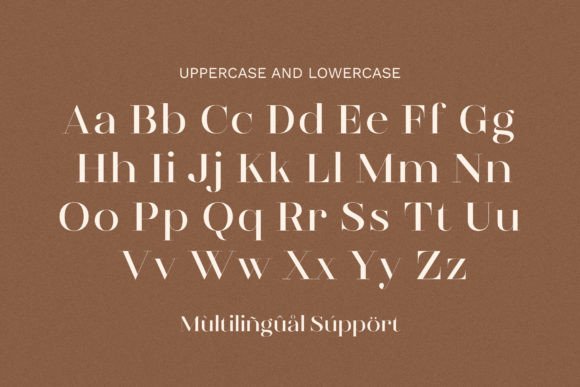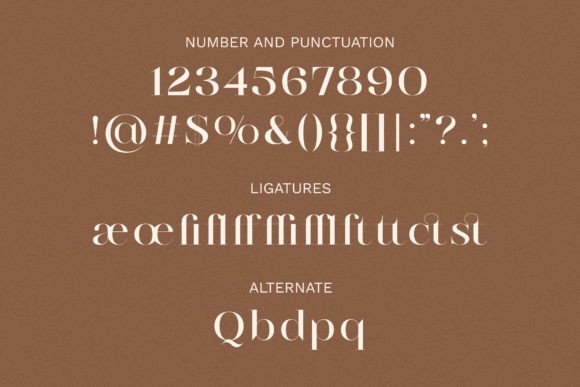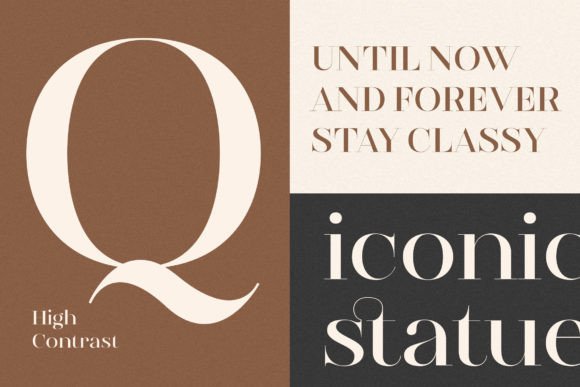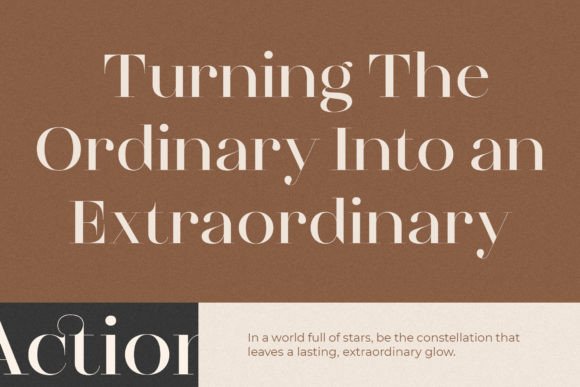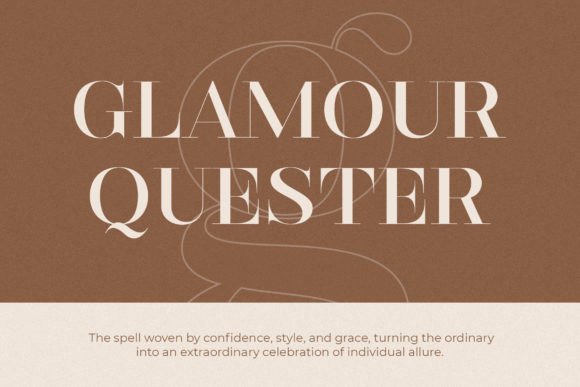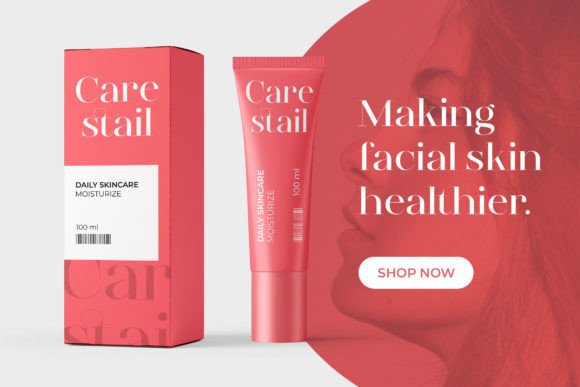
Introduction to Gistalk Font
Have you ever been in the middle of a creative project, pouring your heart and soul into a design, only to feel like something’s missing? The perfect font can make all the difference. For designers, finding that elusive font that elevates a design to the next level is a constant quest. This is where the Gistalk Font comes in – a luxury serif font that embodies sophistication and elegance.
As a valuable resource for designers, the Gistalk Font offers a level of refinement and timelessness that’s hard to find in other fonts. Its meticulously crafted ligatures and high-quality design make it a go-to choice for projects that require a touch of class. Whether you’re working on a logo design, business card, or packaging design, the Gistalk Font is sure to impress with its luxurious feel and transparent background.
Key Features of Gistalk Font
- High-quality font design with a transparent background, ideal for creative projects and designs.
- Comes in 5 unique styles, each with a distinct aesthetic and feel.
- Designed with a focus on readability and versatility, making it suitable for a wide range of design applications.
Honest Review: Gistalk Font
As a designer, I’m always on the lookout for high-quality design resources to elevate my creative projects. Recently, I had the chance to try out the Gistalk Font, and I’m excited to share my honest review.
- Unique Style: The Gistalk Font has a distinctive, modern design that catches the eye. It’s perfect for adding a touch of sophistication to your design.
- High-Quality Vectors: The font is available in high-quality vector format, making it easy to resize and manipulate without losing any detail.
- Transparent Background: The font comes with a transparent background, which makes it easy to combine with other design elements.
- Limited Character Set: The font only includes a limited character set, which may not be suitable for complex text-based projects.
- Not Suitable for Body Text: The font is more suitable for headlines and titles, as the text may become difficult to read when used for body text.
Gistalk Font: A High-Quality Design Resource for Creative Projects
Tips for Getting the Most Out of Gistalk Font
Use the Gistalk Font in conjunction with a transparent background to create a modern and sleek design. Experiment with different font sizes and styles to add visual interest to your design.
The Gistalk Font is suitable for a variety of creative projects, including graphic design, digital art, and web design. It is particularly useful for creating modern and minimalist designs.